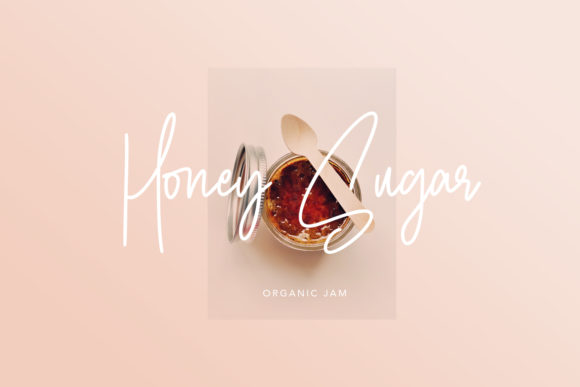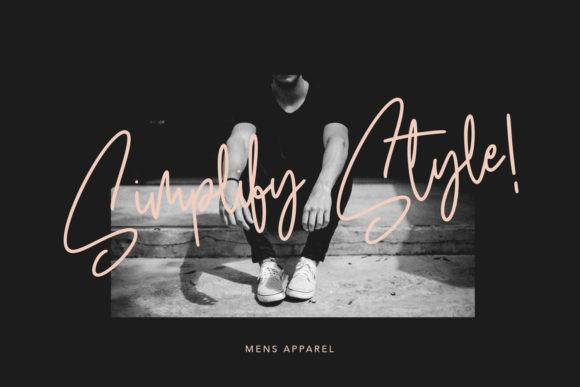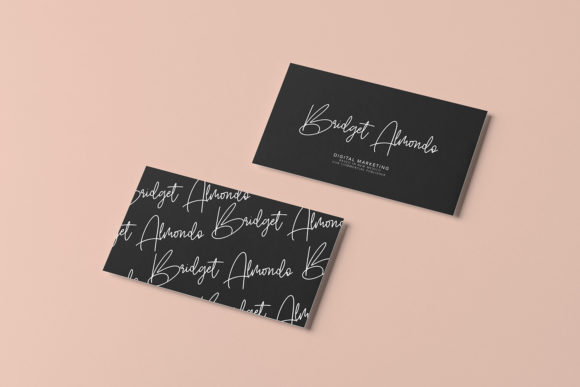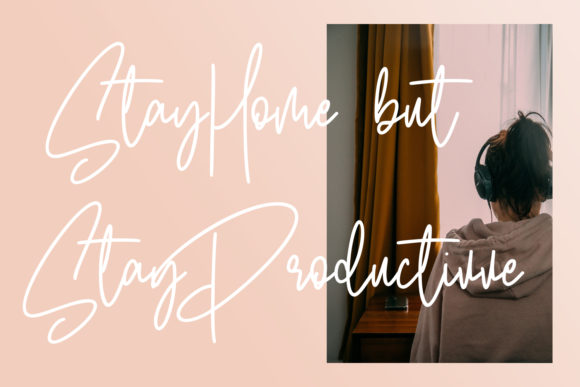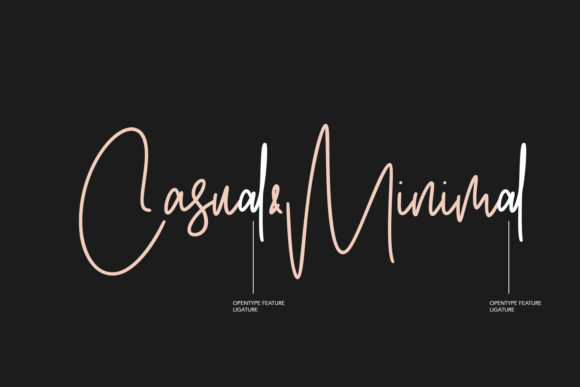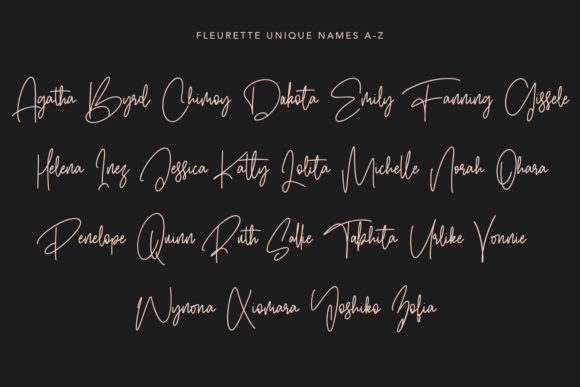
Fleurette Font: The Ultimate Guide to This Beautiful Handwritten Font
Are you a designer or crafter looking for a unique and versatile font to elevate your creative projects? Look no further than Fleurette Font! This relaxed and unique handwritten font is perfect for creating stunning wedding invitations, beautiful stationery art, eye-catching social media posts, and so much more. In this article, we’ll dive into the world of Fleurette Font and explore its features, uses, and benefits.
What is Fleurette Font?
Fleurette Font is a modern, handwritten font that exudes a sense of elegance and sophistication. Its unique and relaxed style makes it perfect for a wide range of creative projects, from formal wedding invitations to casual social media posts. With its incredibly versatile style, Fleurette Font is sure to capture the hearts of designers and crafters alike.
Features of Fleurette Font
So, what makes Fleurette Font so special? Here are just a few of its key features:
- Unique and Handwritten Style: Fleurette Font boasts a one-of-a-kind, handwritten style that’s both elegant and approachable.
- Versatile: Whether you’re creating wedding invitations, social media posts, or stationery art, Fleurette Font adapts seamlessly to any design.
- Easy to Read: Despite its unique style, Fleurette Font remains highly legible, making it perfect for both digital and print applications.
- Modern and Sophisticated: Fleurette Font’s modern aesthetic makes it perfect for designers and crafters looking to add a touch of sophistication to their projects.
Uses of Fleurette Font
So, what can you create with Fleurette Font? The possibilities are endless! Here are just a few ideas to get you started:
- Wedding Invitations: Create stunning wedding invitations that set the tone for a beautiful and elegant wedding.
- Stationery Art: Use Fleurette Font to create beautiful stationery art, including greeting cards, thank-you cards, and more.
- Social Media Posts: Add a touch of elegance to your social media posts with Fleurette Font.
- Branding and Packaging: Use Fleurette Font to create custom branding and packaging that stands out from the crowd.
Benefits of Using Fleurette Font
So, why choose Fleurette Font for your next project? Here are just a few benefits of using this beautiful font:
- Time-Saving: With Fleurette Font, you can create stunning designs in a fraction of the time it would take to create them from scratch.
- Unique and Memorable: Fleurette Font’s unique style ensures that your designs will stand out and be remembered.
- Easy to Use: Fleurette Font is incredibly easy to use, even for those with limited design experience.
- High-Quality: Fleurette Font is a high-quality font that’s designed to deliver exceptional results.
Tips for Using Fleurette Font
Ready to get started with Fleurette Font? Here are a few tips to help you make the most of this beautiful font:
- Pair with Other Fonts: Fleurette Font pairs beautifully with other fonts, so don’t be afraid to get creative and try out different combinations.
- Use on a Variety of Projects: Fleurette Font is incredibly versatile, so don’t limit yourself to just one type of project.
In conclusion, Fleurette Font is a beautiful and versatile handwritten font that’s perfect for designers and crafters looking to elevate their creative projects. With its unique and relaxed style, Fleurette Font is sure to capture the hearts of anyone who sees it. Whether you’re creating wedding invitations, social media posts, or stationery art, Fleurette Font is the perfect choice. So why wait? Fall in love with Fleurette Font today and start creating stunning designs that will leave a lasting impression!